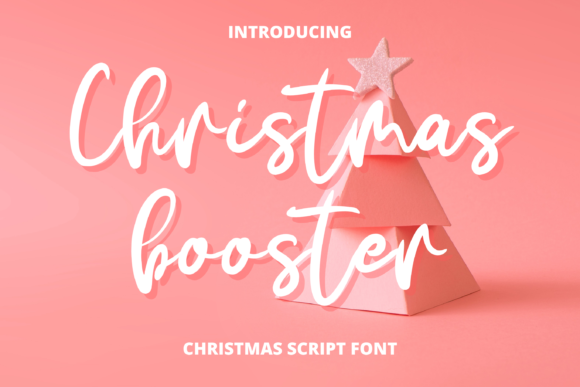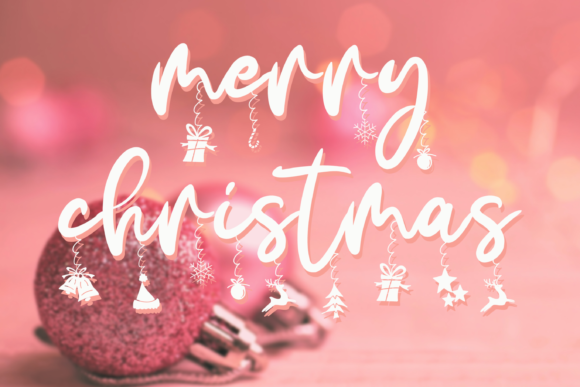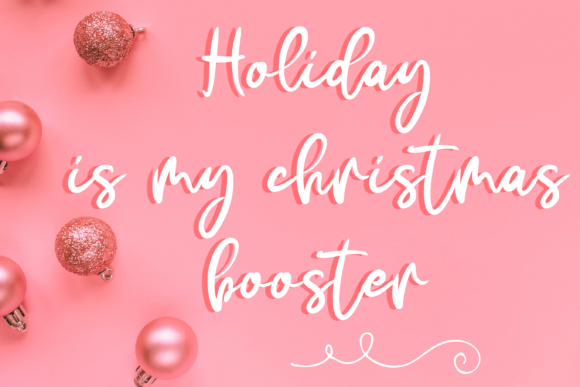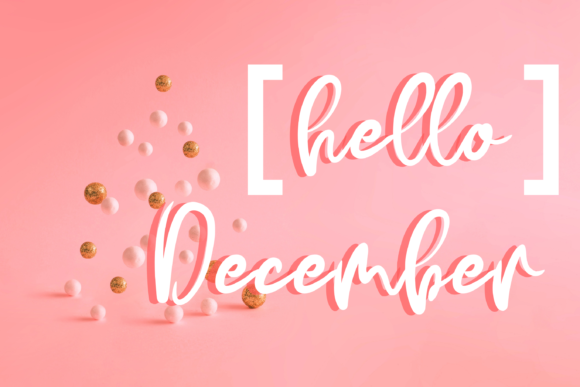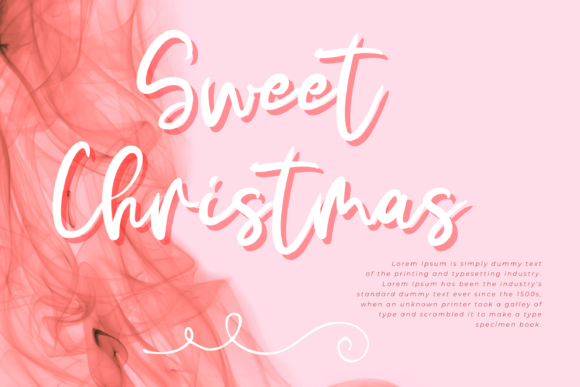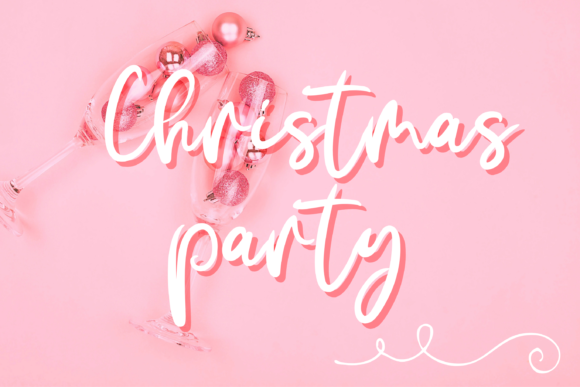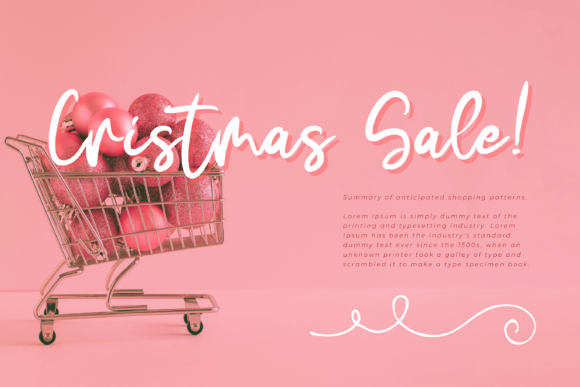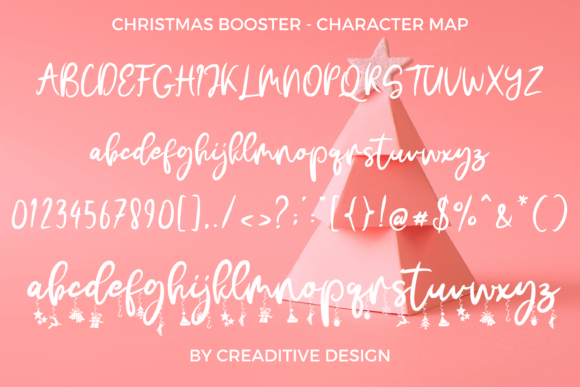
About Christmas Booster Font
Christmas Booster is a flowing handwritten font, described by an elegant touch, perfect for your favorite projects. This font is PUA encoded which means you can access all of the glyphs and swashes with ease!